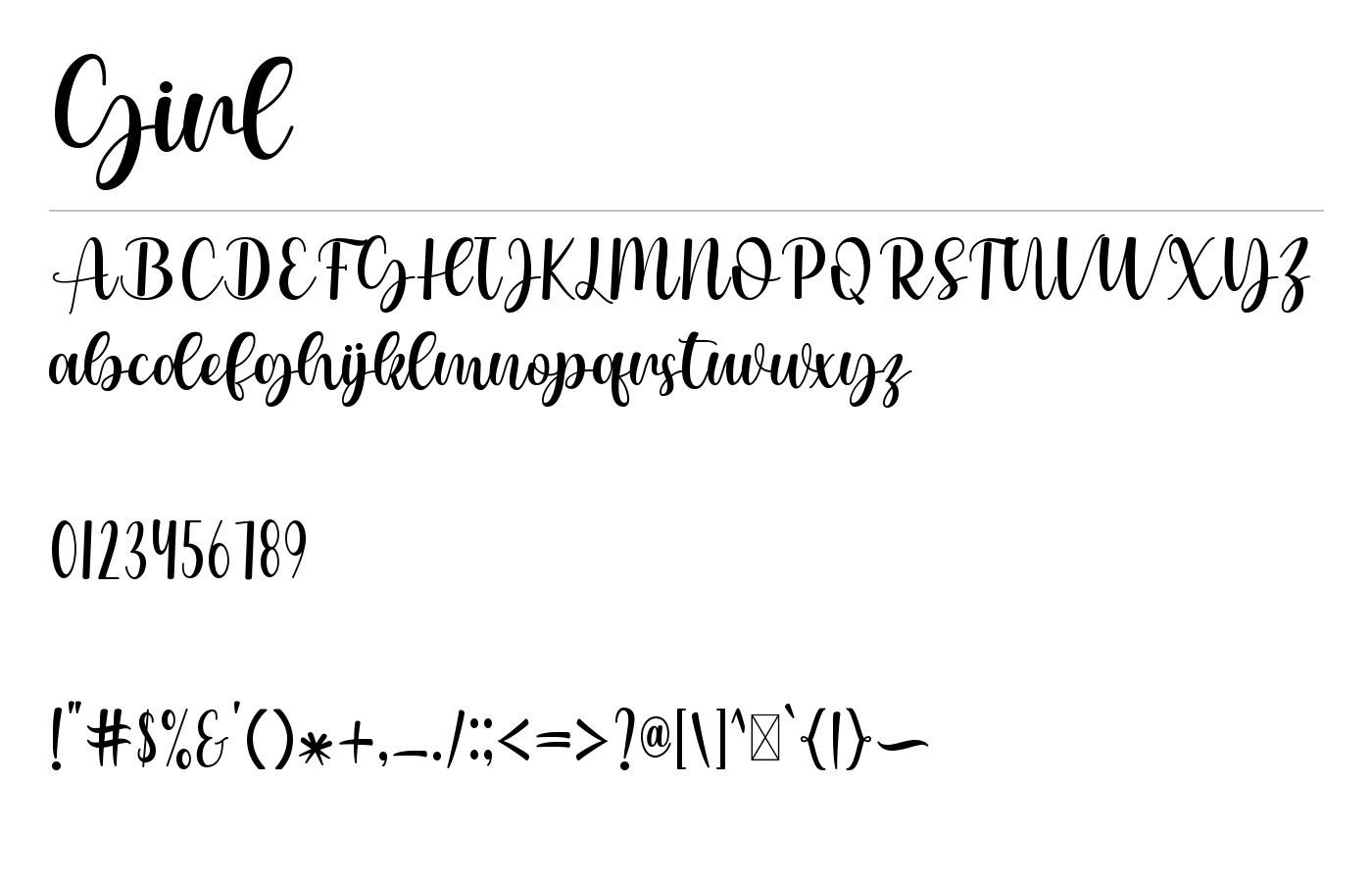
Girl Font is a charming script typeface with a friendly, hand-lettered feel, featuring smooth, flowing strokes and moderate contrast that add elegance without sacrificing readability. Its playful yet refined letterforms with distinctive loops and swashes make it ideal for branding, invitations, and feminine-themed designs where a personal, stylish touch is desired. This font works beautifully in headlines and decorative uses, bringing warmth and personality to creative projects.
Girl Font
About Girl Font